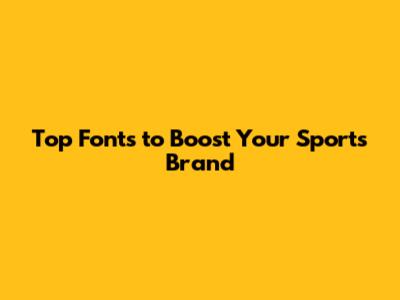
Choosing the right font for your sports brand is crucial. The font you select significantly impacts how your brand is perceived. It communicates personality, professionalism, and overall brand identity. Selecting the correct font can make all the difference, whether it's for a logo, website, or marketing materials. This article will explore some of the best fonts to elevate your sports brand and make it stand out in a competitive market. Let's dive in and find the perfect typeface to represent your brand!
Why Font Choice Matters for Sports Brands
Font choice matters significantly for sports brands because it's more than just selecting something that looks good. The right font can evoke specific emotions and associations, which is crucial in the sports industry. Think about some of the most iconic sports brands out there – their logos and branding are instantly recognizable, partly due to the fonts they use. A font that’s too playful might not work for a serious sporting goods company, while a font that’s too rigid might not resonate with an energetic sports team. Therefore, it's about matching the font's personality to the brand's identity and values.
Consider the psychology of fonts. Serif fonts often convey a sense of tradition, authority, and trustworthiness. While great for some applications, they might feel a bit too formal for a modern sports brand. On the other hand, sans-serif fonts tend to appear more modern, clean, and approachable – attributes that resonate well with contemporary audiences. The weight, width, and style of a font all contribute to the message it sends.
Consistency is key, guys. Once you choose a font, ensure it's used consistently across all branding materials. This includes your website, social media, merchandise, and advertising campaigns. Consistent use of typography helps build brand recognition and reinforces your brand's identity in the minds of consumers. Moreover, consider readability. A stylish font might look fantastic in a logo, but if it's difficult to read on a website or in print, it's not serving its purpose. Opt for fonts that are legible in various sizes and formats to ensure clear communication.
In essence, the font you choose becomes part of your brand’s story. It influences how people perceive your brand, whether as powerful, innovative, reliable, or fun. Investing time and thought into font selection is an investment in your brand's overall success. It's a visual element that speaks volumes and can set you apart in the competitive world of sports.
Top Font Recommendations for Sports Brands
When it comes to top font recommendations for sports brands, several standout options can help capture the essence of athleticism, energy, and competition. Each of these fonts brings its unique flavor, so let's explore some of the best choices and see how they can contribute to your brand's identity.
1. Montserrat
Montserrat is a versatile sans-serif font that exudes modernity and clarity. Its clean lines and geometric shapes make it highly readable, perfect for both digital and print applications. The font's wide range of weights allows for flexibility in design, making it suitable for logos, headings, and body text. For a sports brand, Montserrat communicates professionalism and a contemporary edge, which is excellent for brands aiming to appeal to a broad audience.
2. Bebas Neue
Bebas Neue is a popular choice for sports brands seeking a bold and impactful look. This sans-serif font is known for its tall, condensed letters, which command attention and convey a sense of strength and speed. It's particularly effective for headlines, banners, and promotional materials where you want to make a statement. Its simplicity ensures it remains readable, even in dynamic designs.
3. Rajdhani
Rajdhani is a modern sans-serif font that brings a unique blend of energy and sophistication. With its slightly rounded corners and geometric structure, it offers a friendly yet athletic vibe. Rajdhani works well for sports teams, fitness apps, and athletic gear brands. Its versatility makes it suitable for various applications, from website design to merchandise branding.
4. Oswald
Oswald is a classic sans-serif font designed to be clean and impactful. Its condensed letterforms and bold strokes make it ideal for headlines and display purposes. Oswald communicates confidence and strength, aligning well with the values of many sports brands. Its adaptability ensures it looks great across different media, maintaining a consistent brand image.
5. Roboto
Roboto is a widely used sans-serif font known for its clean and readable design. Developed by Google, it offers a neutral yet modern aesthetic, making it a versatile choice for various sports-related applications. Its open forms and friendly curves make it approachable, while its geometric structure adds a touch of professionalism. Roboto is particularly effective for websites, apps, and digital content.
6. Fira Sans
Fira Sans is another excellent sans-serif option, offering a balance of readability and visual appeal. Its slightly rounded terminals give it a warm and inviting feel, while its clean lines ensure it remains professional. Fira Sans is a great choice for sports brands that want to convey a sense of approachability and reliability. It works well for body text, headlines, and branding elements.